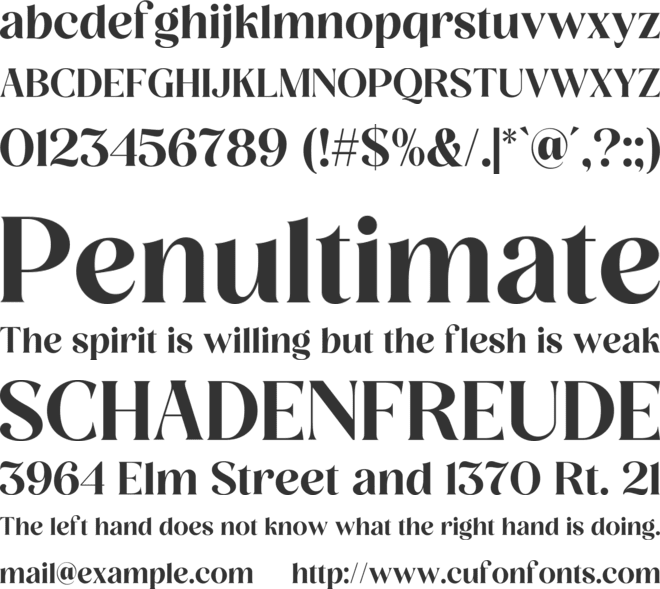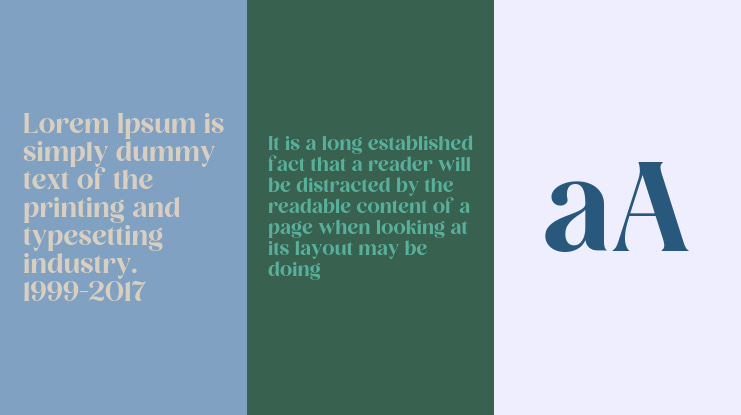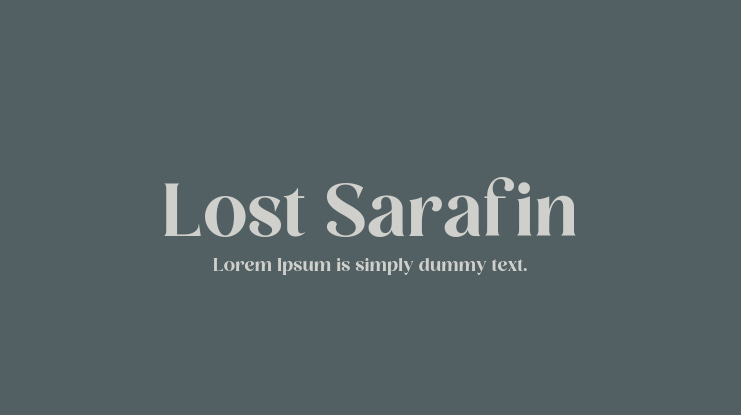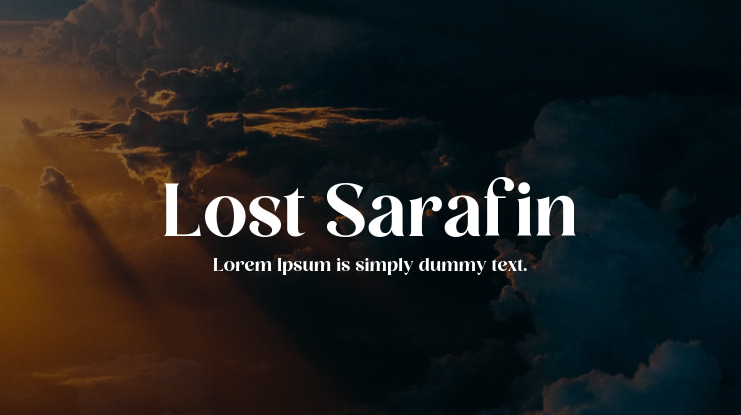
“Lost Sarafin” – Retro Elegance, Reimagined.
Discover the captivating fusion of nostalgia and contemporary design with “Lost Sarafin,” a display serif font that seamlessly blends retro charm with modern aesthetics. Inspired by the timeless elegance of vintage styles, this exquisite typeface infuses your projects with a touch of sophisticated character.